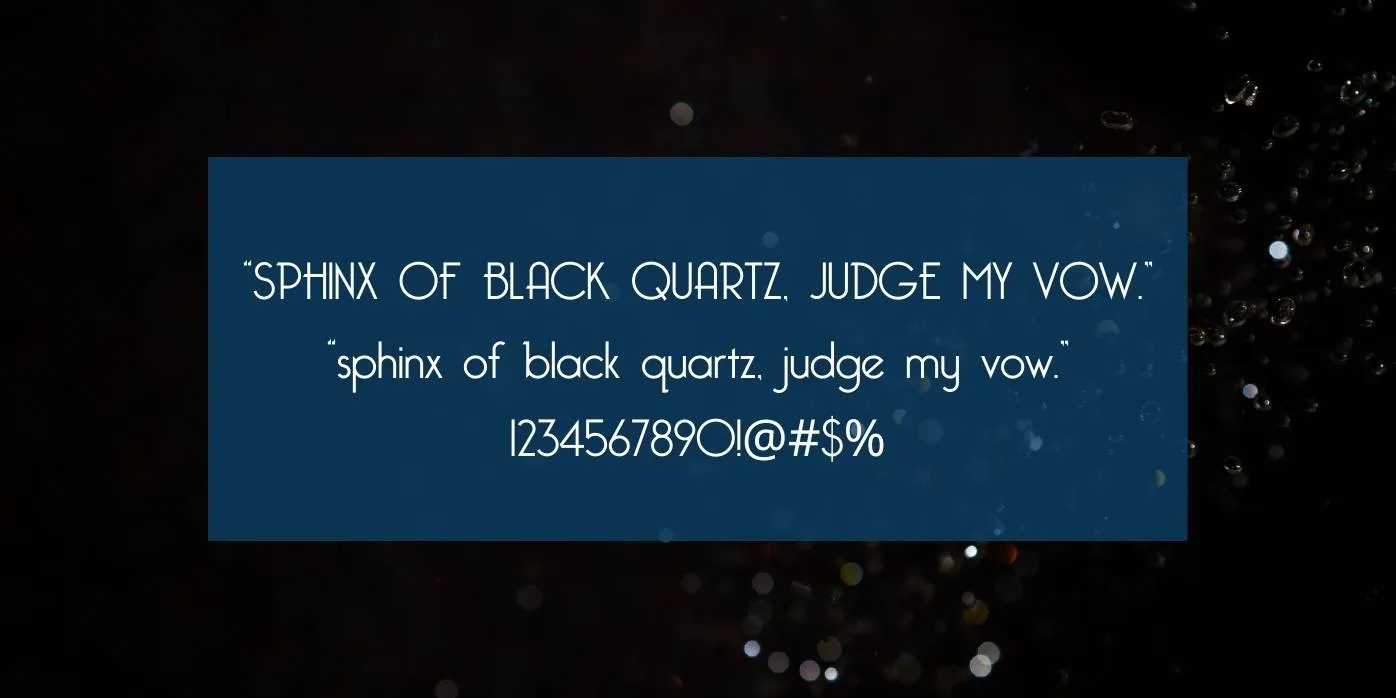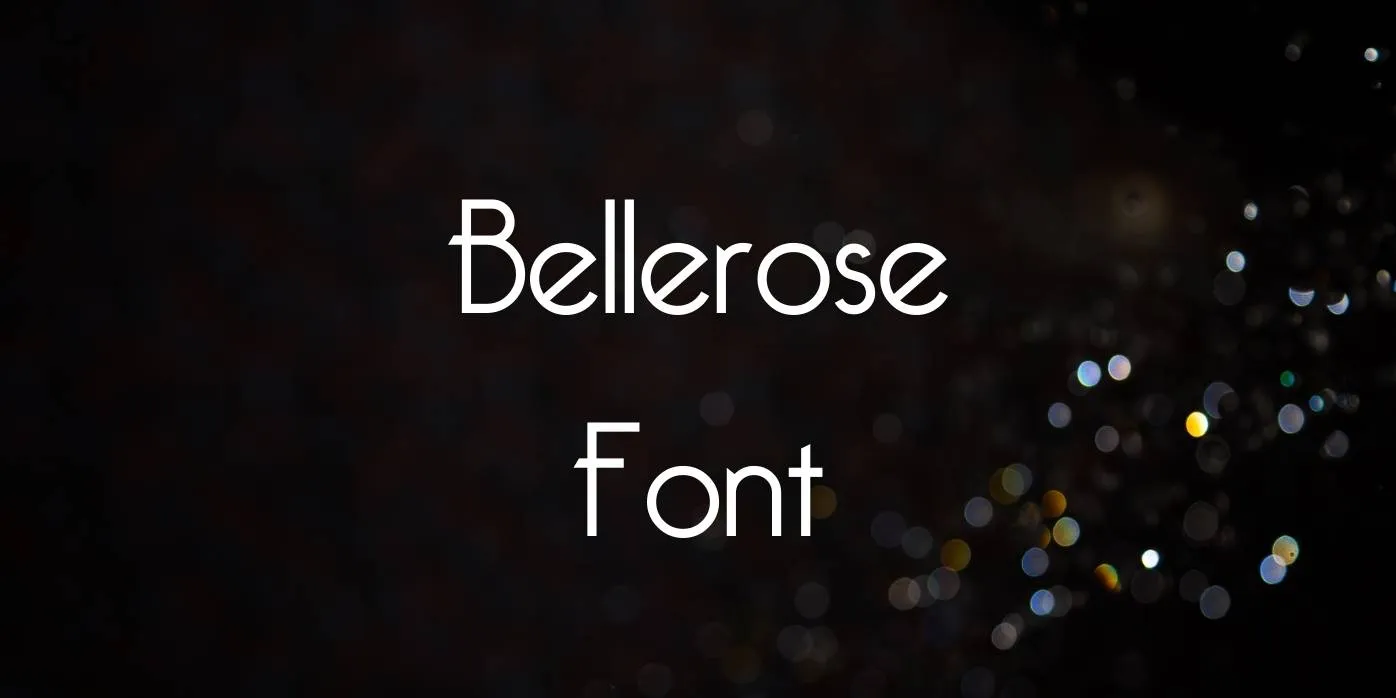
Bellerose Font
Here, we present a very stylish typeface known as Bellerose Font. This typeface belongs to the fancy font family. This family was developed by Harris Designs. This font is a very elegant and sophisticated typeface.
It has a unique style that makes it stand out from other fonts. Bellerose Font is perfect for any formal or professional document. The best thing about this font is that it is very easy to read. This is because of the simple yet stylish design of the letters.
The letterforms are also spaced evenly, which makes them easier to read. It is not a part of google fonts. You can use it for Adobe and Canva. You can use ninja turtle font which has the same style and characters as this one.